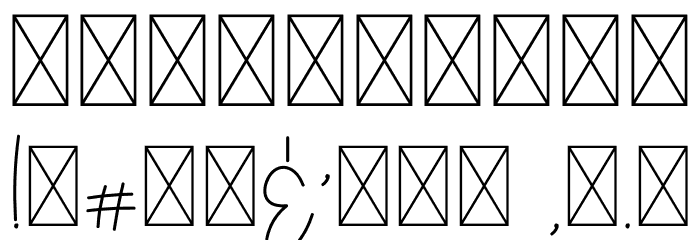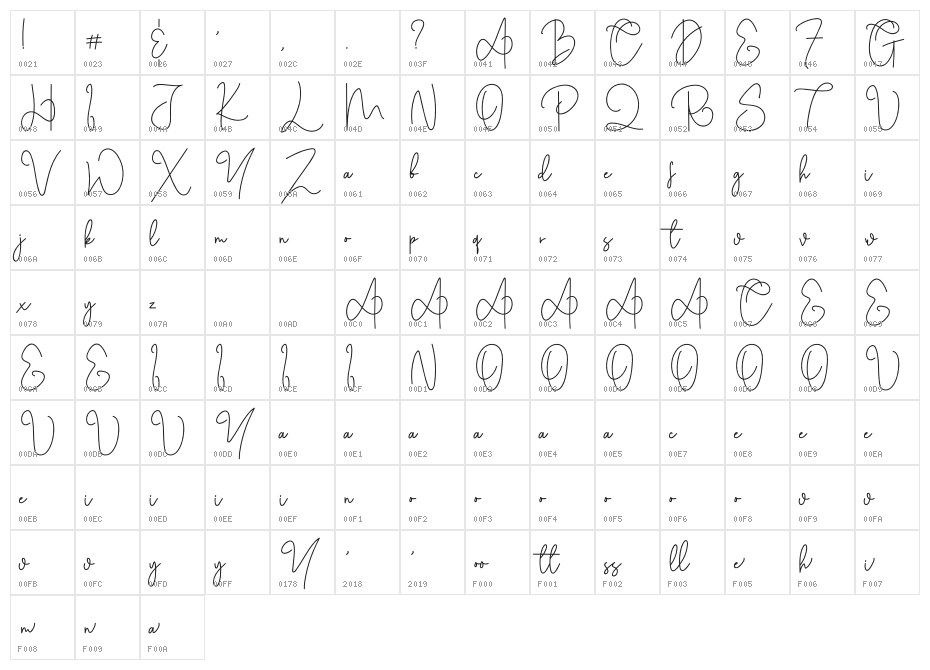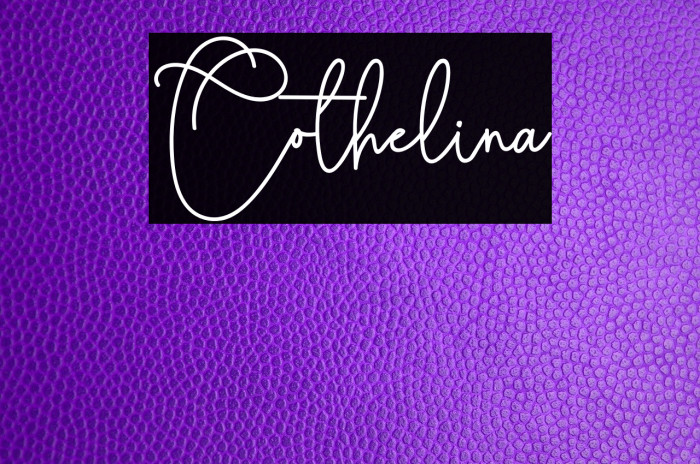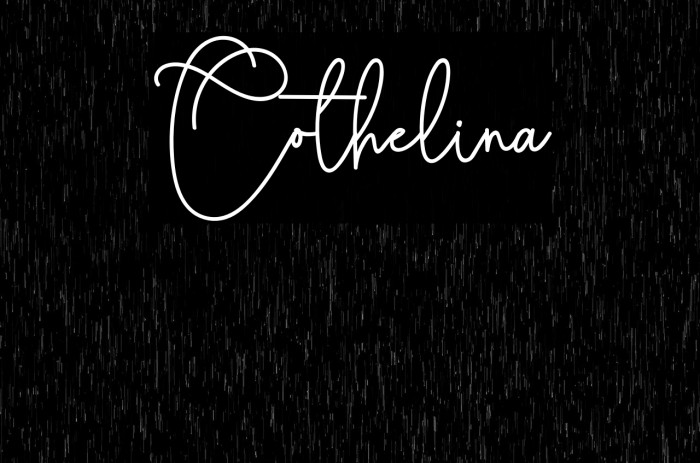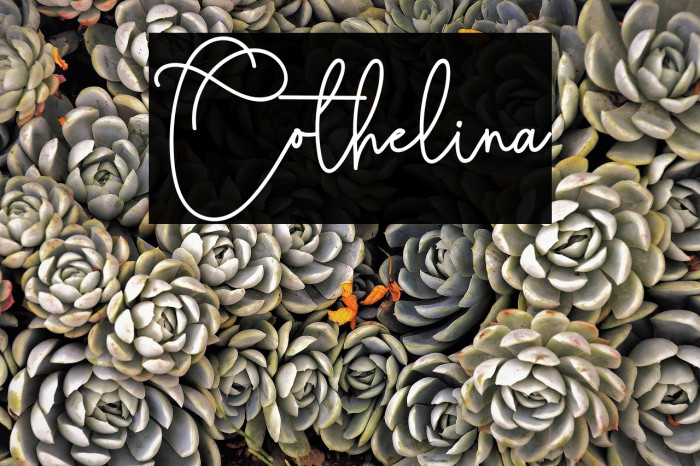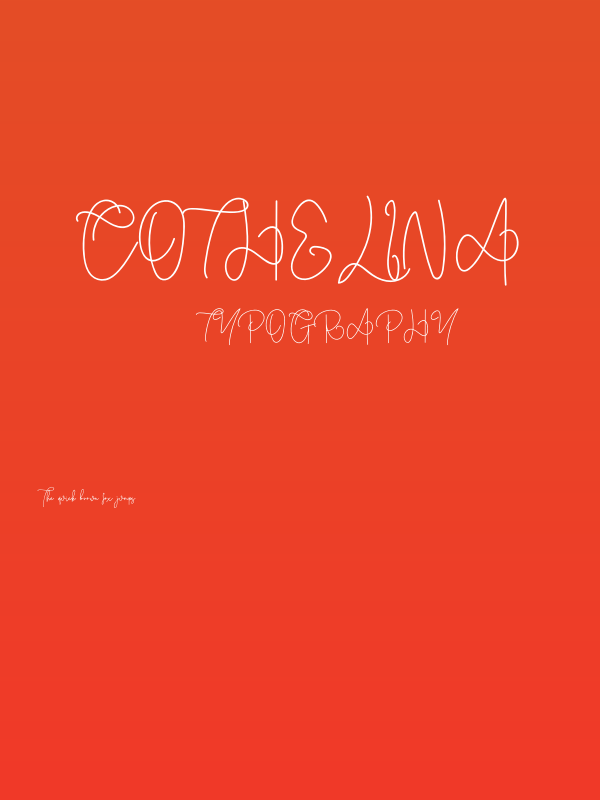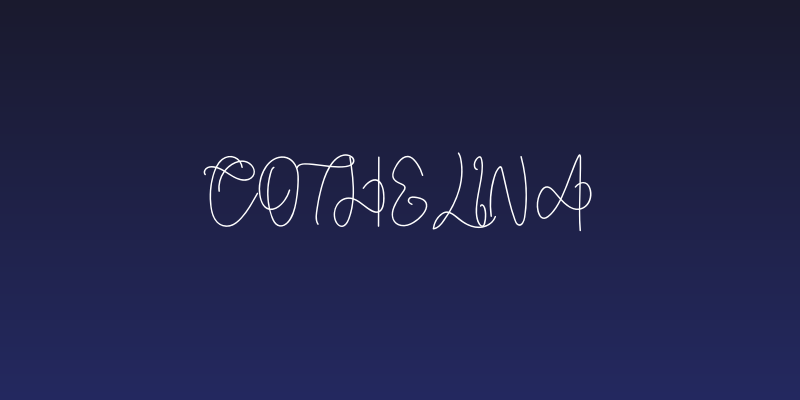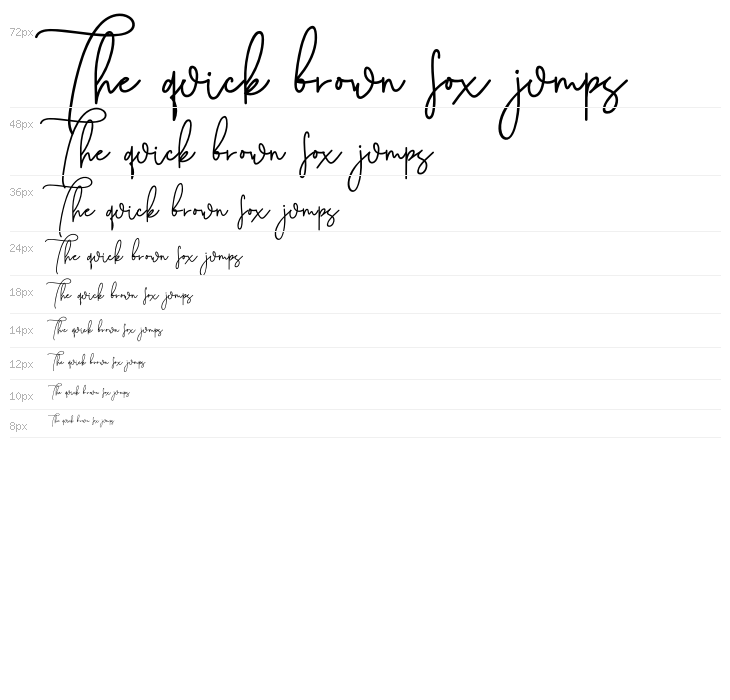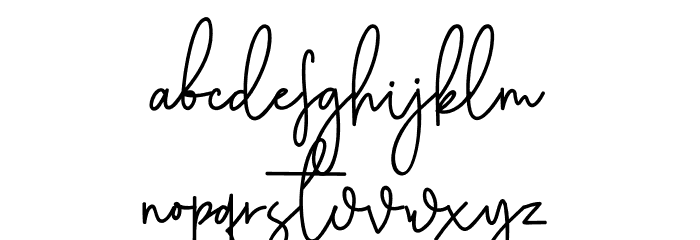
Cothelina Font
Cothelina Description
This font features a unique blend of elegance and modernity, characterized by its flowing, cursive style. The uppercase letters are tall and slender, with a whimsical, hand-drawn appearance that adds a touch of playfulness. The lowercase letters maintain a consistent, smooth flow, enhancing readability while retaining an artistic flair. The strokes are thin and delicate, with a slight variation in thickness that adds to the font's charm. The overall design is airy and light, making it suitable for creative and decorative purposes.
| Proposed Projects | Ideal for wedding invitations, greeting cards, branding, and artistic projects. |